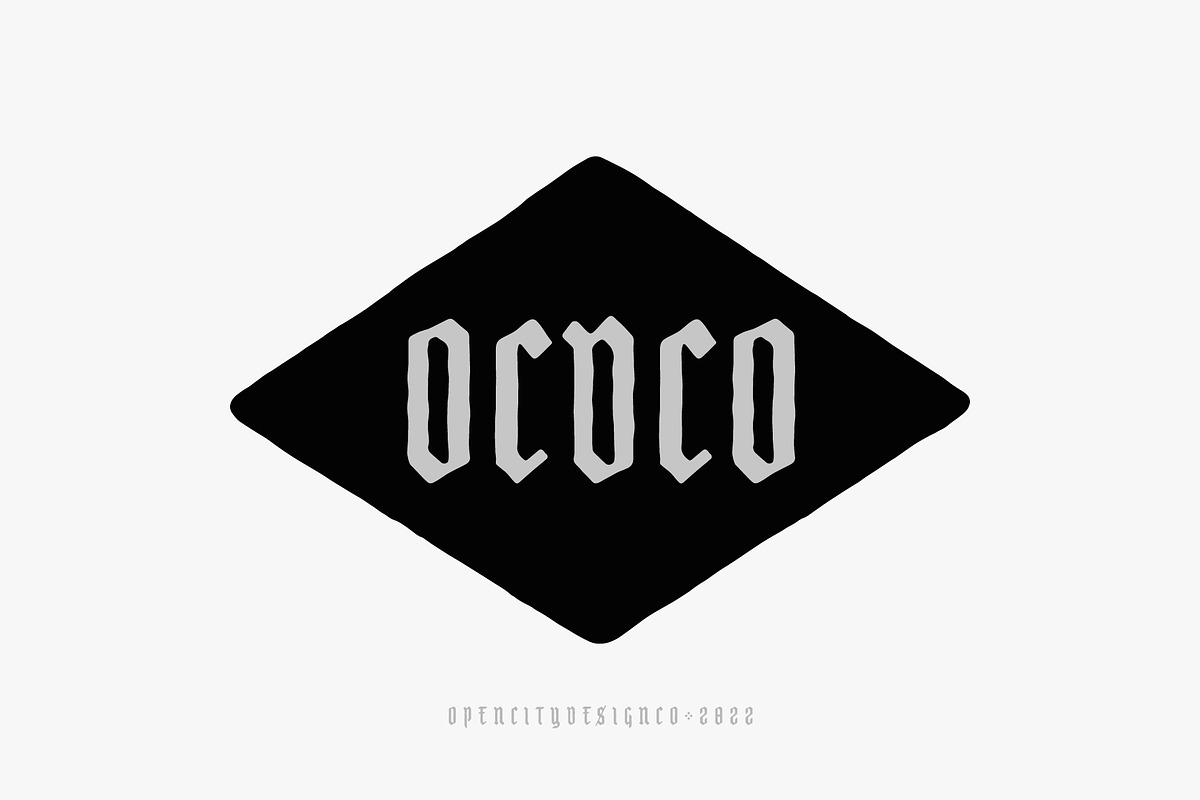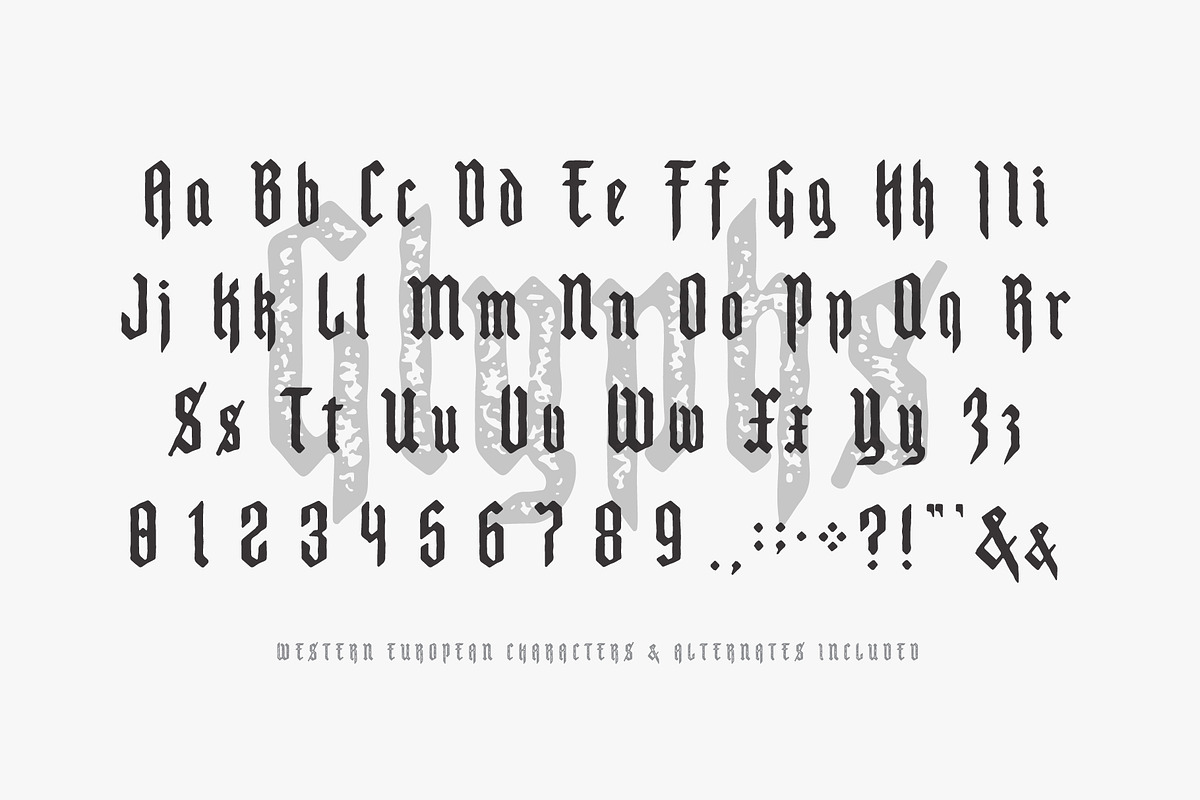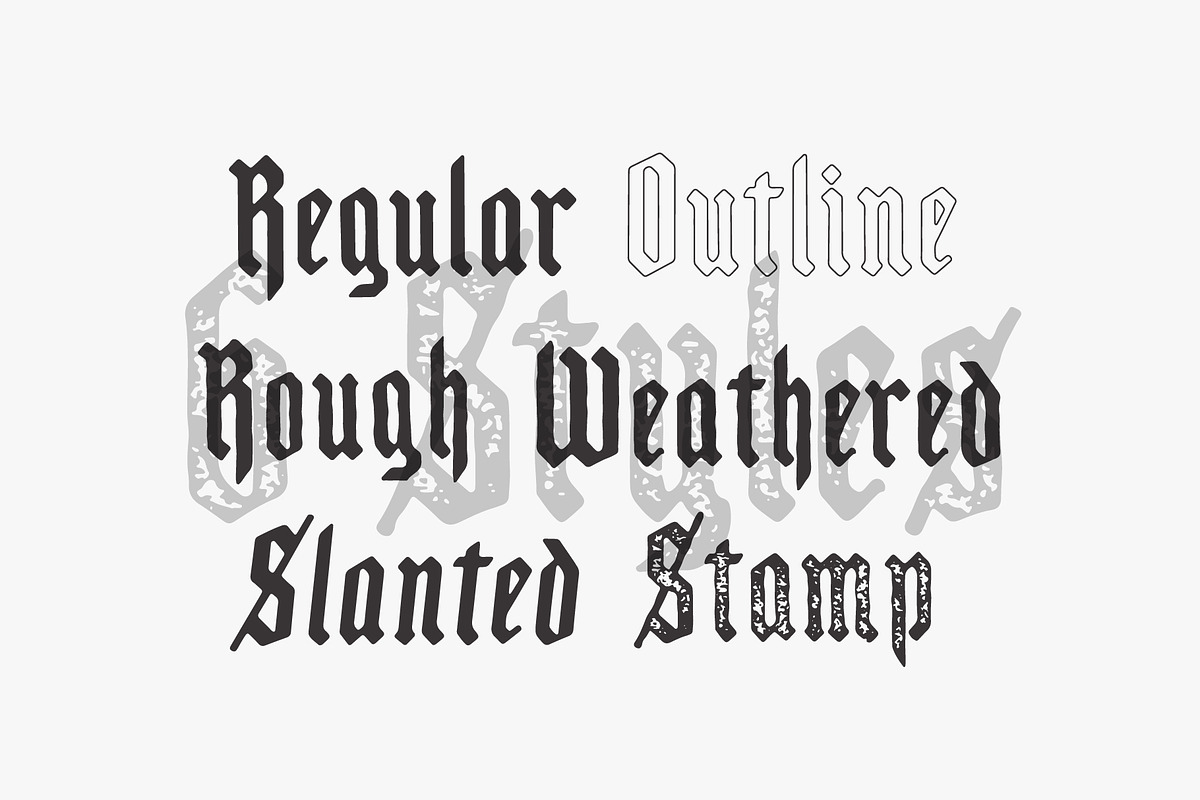
Scotland includes upper + lowercase, numbers, some punctuation, western European characters, and alternates. This ruggedly handsome hand-lettered blackletter comes in 6 handcrafted styles.